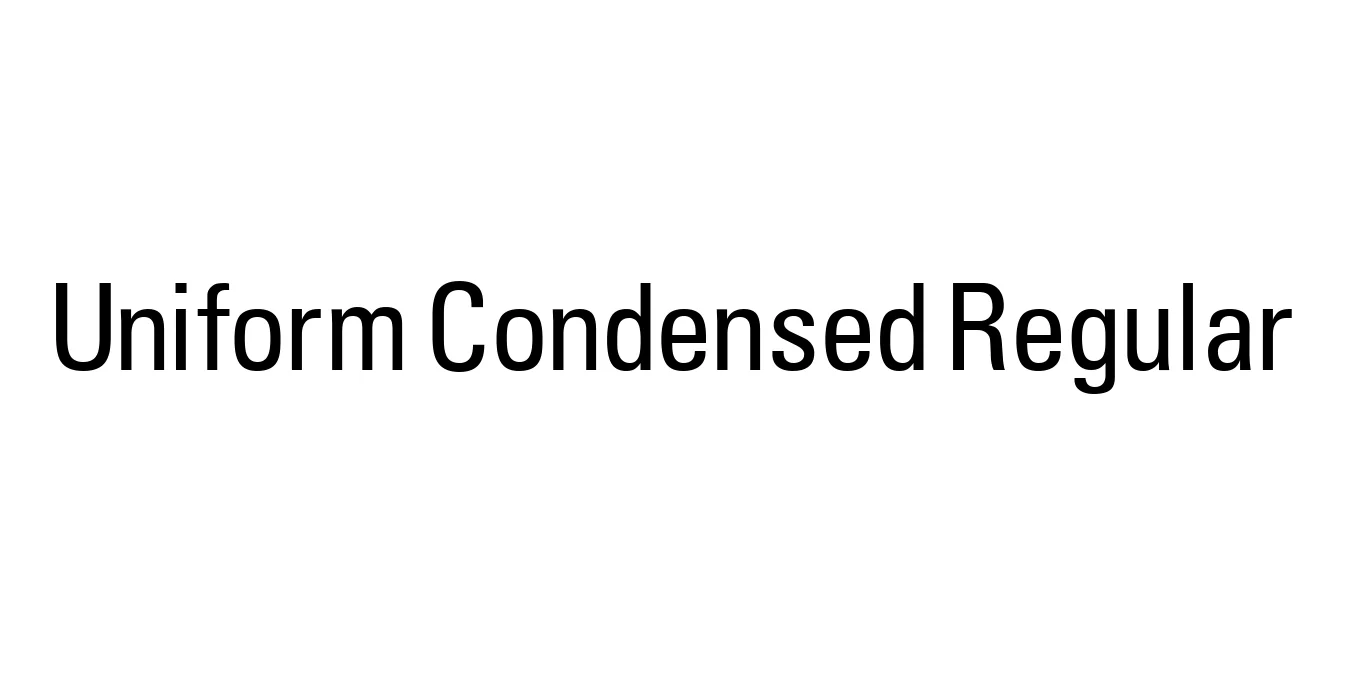
Uniform Condensed Regular
Designed by Richard Miller
Uniform Condensed Regular is a sophisticated geometric sans-serif typeface designed by Richard Miller of Miller Type Foundry. Part of the broader Uniform superfamily, this specific weight was developed with mathematical precision to ensure that the circular forms remain consistent across all widths. The condensed nature of this variant makes it an ideal choice for designers looking to maximize horizontal space without sacrificing the font's characteristic clarity and modern aesthetic.
The design philosophy behind Uniform Condensed focuses on clean lines and a technical, yet approachable feel. It is highly versatile, performing exceptionally well in both digital environments and traditional print media. Whether used for sleek corporate identities or dense editorial layouts, the typeface maintains a professional and balanced appearance that bridges the gap between classic geometric fonts and contemporary UI/UX requirements.
Uniform Condensed Regular Best Uses
Excellent for high-impact titles where horizontal space is at a premium.
Optimized for readability on small screens and narrow mobile layouts.
Conveys a sense of modern efficiency, precision, and reliability.
Perfect for bold, vertical typographic arrangements in advertising.
Useful for sidebars and densly packed editorial content.